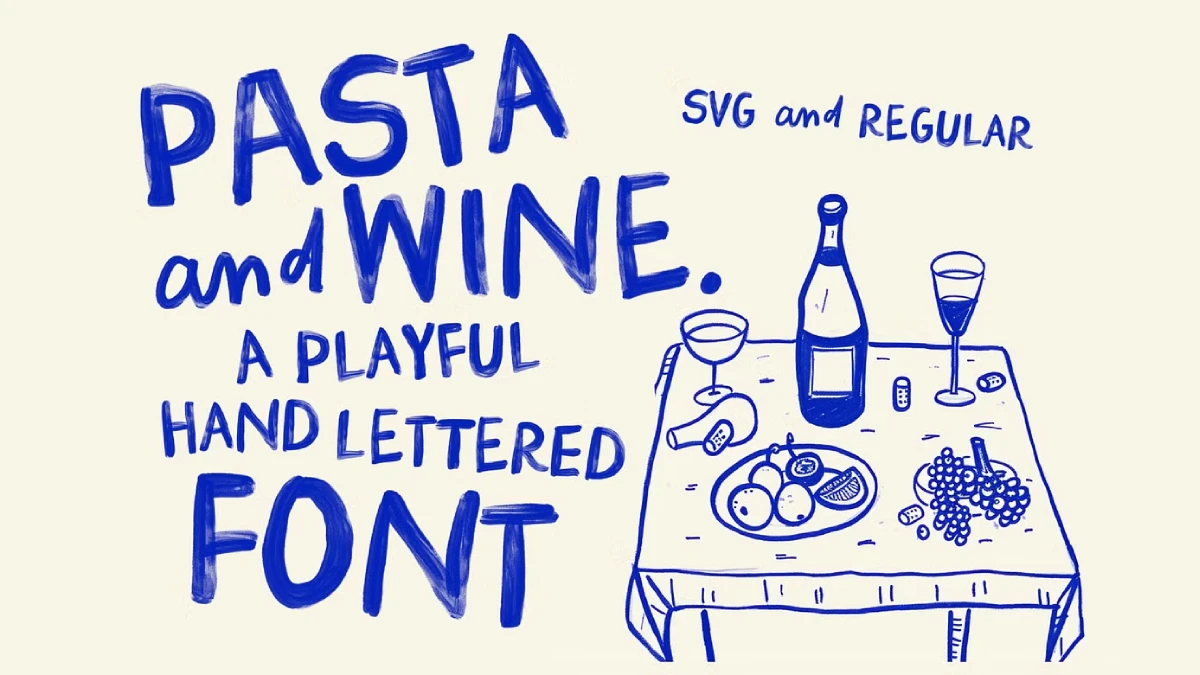
Some typefaces whisper sophistication, shout excitement, or, in some delightful cases, offer a warm, friendly hug. Finding that perfect typeface, the one that truly speaks the language of your project, can feel like searching for a hidden gem. You sift through countless options, many polished and precise, others perhaps a bit too formal or cold. Sometimes, though, you stumble upon something different. Something vibrant. Something that feels less like a digital tool and more like bottled creativity. That’s exactly the feeling the Pasta and Wine typeface evokes.
Imagine the easy-going vibe of a sunny afternoon gathering with friends. Picture the effortless charm of a hand-painted sign outside a cozy trattoria. Think about the simple joy found in something made with care and a touch of playful imperfection. This is the essence captured by Pasta and Wine, a remarkable creation from the talented font designer Nicky Laatz. Nicky has a wonderful knack for infusing her fonts with life, character, and an undeniable sense of fun. With Pasta and Wine, she invites us to embrace a style that’s refreshingly authentic and brimming with personality. It’s more than just a font; it’s an experience waiting to unfold on your next creative project. Ready to see what makes it so captivating?
What Exactly is This Delicious-Sounding Typeface?
At its heart, Pasta and Wine is a hand-drawn, or more accurately, a hand-painted Bitmap SVG font. Now, what does that mean for you, the designer or creative enthusiast? Standard vector fonts use mathematical points and lines to create smooth, scalable letters. They’re incredibly versatile, of course. Bitmap SVG fonts, however, are different. They retain the rich textures and transparency variations of the original artwork – in this case, actual paint strokes!
When you use Pasta and Wine, you’re placing tiny, incredibly detailed images of painted characters onto your canvas. This allows for a level of realism and texture that standard fonts simply cannot replicate. You can almost see the brush marks, the subtle variations in paint thickness, and the delightful imperfections that make hand-painted lettering so appealing. It brings an organic, tactile quality to digital design, instantly adding warmth and authenticity. Doesn’t that sound like a fantastic way to make your work stand out?
Meet the Family: BIG and SMALL Styles
Nicky Laatz didn’t just create one look; she gave us a versatile duo within the Pasta and Wine family. This pairing offers wonderful flexibility for creating dynamic and engaging typography.
First up is Pasta and Wine BIG. This style is exactly what it sounds like: bold, impactful, and presented entirely in uppercase letters. But there’s a clever trick here! Nicky designed alternate versions for each uppercase letter. How do you access them? Simply toggle between typing uppercase (Shift + letter) and lowercase (just the letter key). This simple action swaps between different painted versions of the same capital letter, allowing you to create a much more natural, less repetitive hand-lettered look. Isn’t that a neat feature? It prevents that “cookie-cutter” feel some all-caps fonts can have.
Complementing its bolder sibling is Pasta and Wine SMALL. This style features lovely lowercase letters, perfect for supporting text, subheadings, or adding a touch of contrast when paired with the BIG style. What makes SMALL extra special are the included OpenType ligatures. Ligatures are special character combinations where two or more letters are joined into a single glyph, mimicking natural handwriting. For example, typing “and” might automatically trigger a unique, connected “and” character. These ligatures further enhance the authentic, hand-painted feel, making your text flow beautifully.
And a fun little tip: need an ampersand (&)? In the Pasta and Wine BIG font, just type the “&” character. For the word “and” using the connected ligature in the SMALL font, simply type the letters “a”, “n”, “d”. Easy!
Beyond SVG: Regular Versions Included
Worried about software compatibility with Bitmap SVG fonts? While programs like Photoshop CC 2017+ and Illustrator CC 2018+ handle SVG fonts beautifully, Nicky Laatz understands that not everyone uses the latest software or requires that textured detail for every application.
That’s why both Pasta and Wine BIG and SMALL also come in ‘Regular’ (non-SVG) versions. These are standard vector font files (like OTF or TTF) that will work universally across almost all software and operating systems. While you won’t get the intricate painted texture of the SVG versions, you still retain the unique shapes, playful energy, and overall character of the Pasta and Wine design. This ensures you can bring that casual, hand-crafted vibe to projects regardless of your technical setup. It’s thoughtful additions like this that make a font package truly user-friendly, don’t you think?
Where Can Pasta and Wine Bring Its Charm?
The personality of Pasta and Wine – fun, super-casual, lighthearted, cheeky, and full of pizazz – makes it incredibly versatile. Where could you imagine using it?
- Branding: Perfect for businesses aiming for a friendly, approachable, and perhaps slightly quirky image. Think cafes, bakeries, artisan food producers, craft shops, or even fun lifestyle blogs. The Pasta and Wine font immediately signals warmth and authenticity.
- Packaging: Imagine it on labels for homemade jams, craft beer bottles, or organic snacks. Its hand-painted look adds a touch of artisanal quality.
- Greeting Cards: Its cheeky and cheerful nature is ideal for birthday cards, thank you notes, or informal invitations.
So, if your next project calls for a typeface that’s bold yet friendly, textured yet accessible, and bursting with personality, look no further. Say hello to Pasta and Wine. It might just be the secret ingredient your designs have been waiting for. Why not give it a try and see what delicious creations you can cook up?